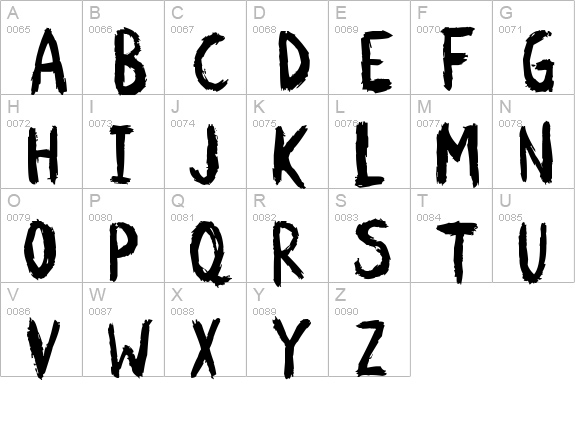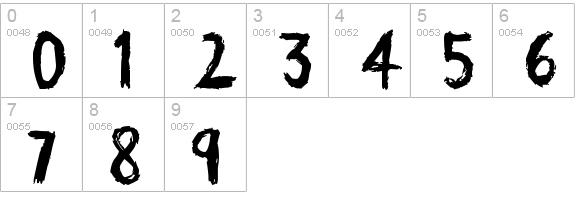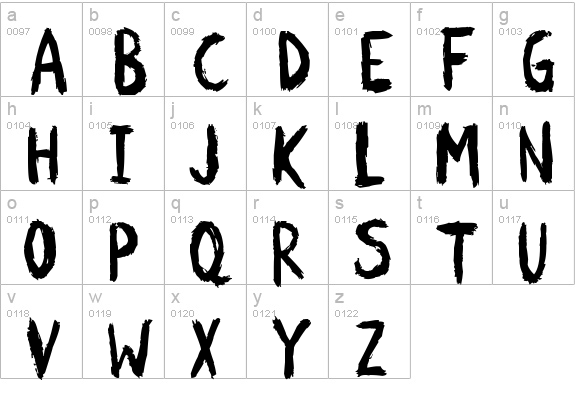
Scratchies Font Details
Scratchies is a free for personal use font in the Script category, designed by Darrell Flood. It has been downloaded 20 times and is available for Windows, Mac and Linux.
Introducing Scratchies font, a whimsical and playful typeface that adds a touch of fun to any design project. With its charming handwritten style, Scratchies is perfect for greeting cards, posters, branding, and more. The irregular lines and quirky details give this font a unique and creative look that will make your designs stand out.